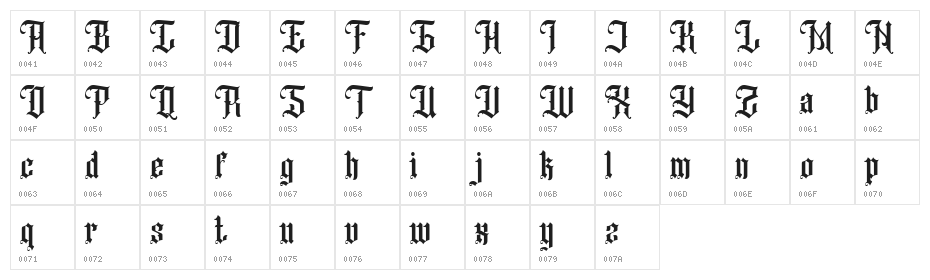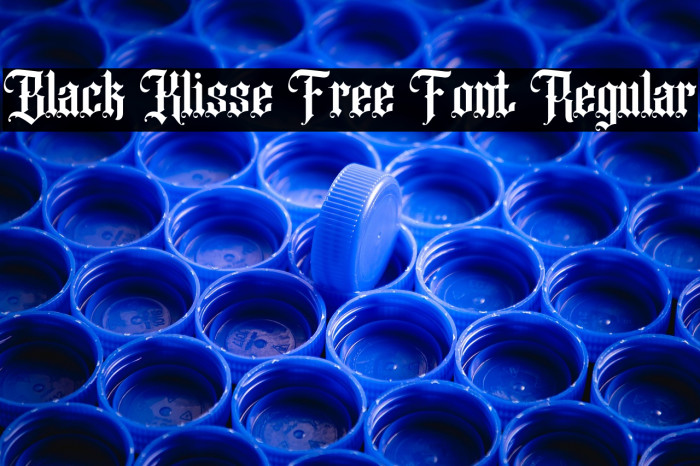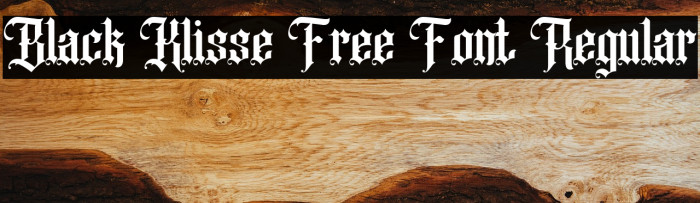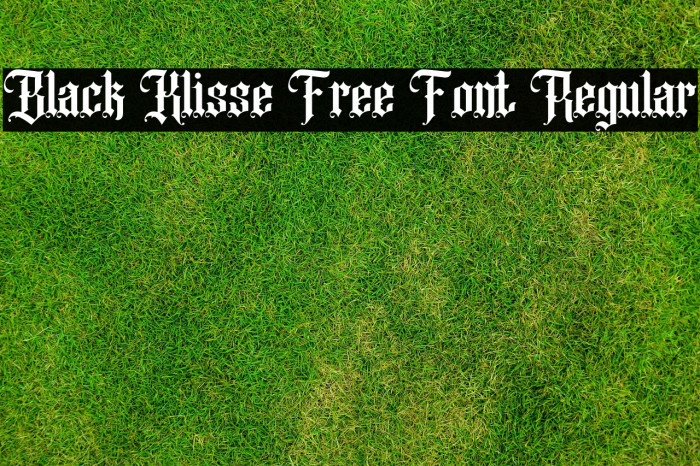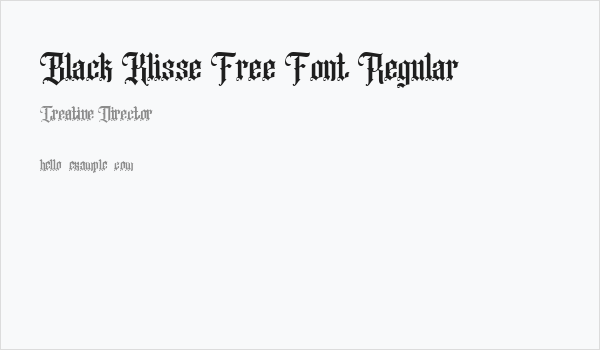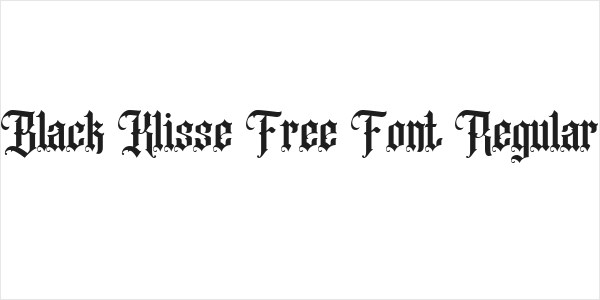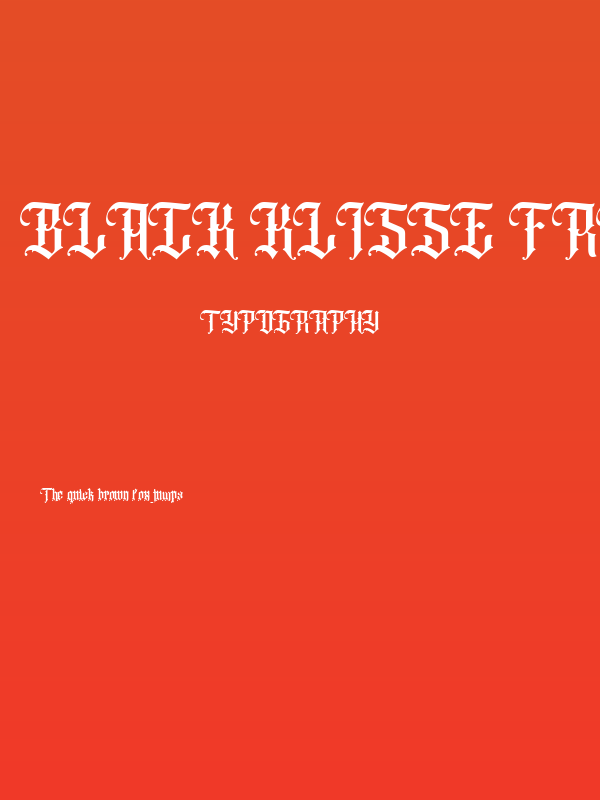
Black Klisse Free Font Regular Font
Black Klisse Free Font Regular Description
This font features a bold and intricate design, reminiscent of traditional Blackletter styles. The characters are highly decorative, with sharp angles and elaborate serifs that give it a gothic and medieval appearance. The uppercase letters are particularly ornate, with additional flourishes that enhance their dramatic impact. The lowercase letters maintain the same level of detail, ensuring consistency across the typeface. The numbers and special characters are equally stylized, making this font suitable for projects that require a strong visual presence.